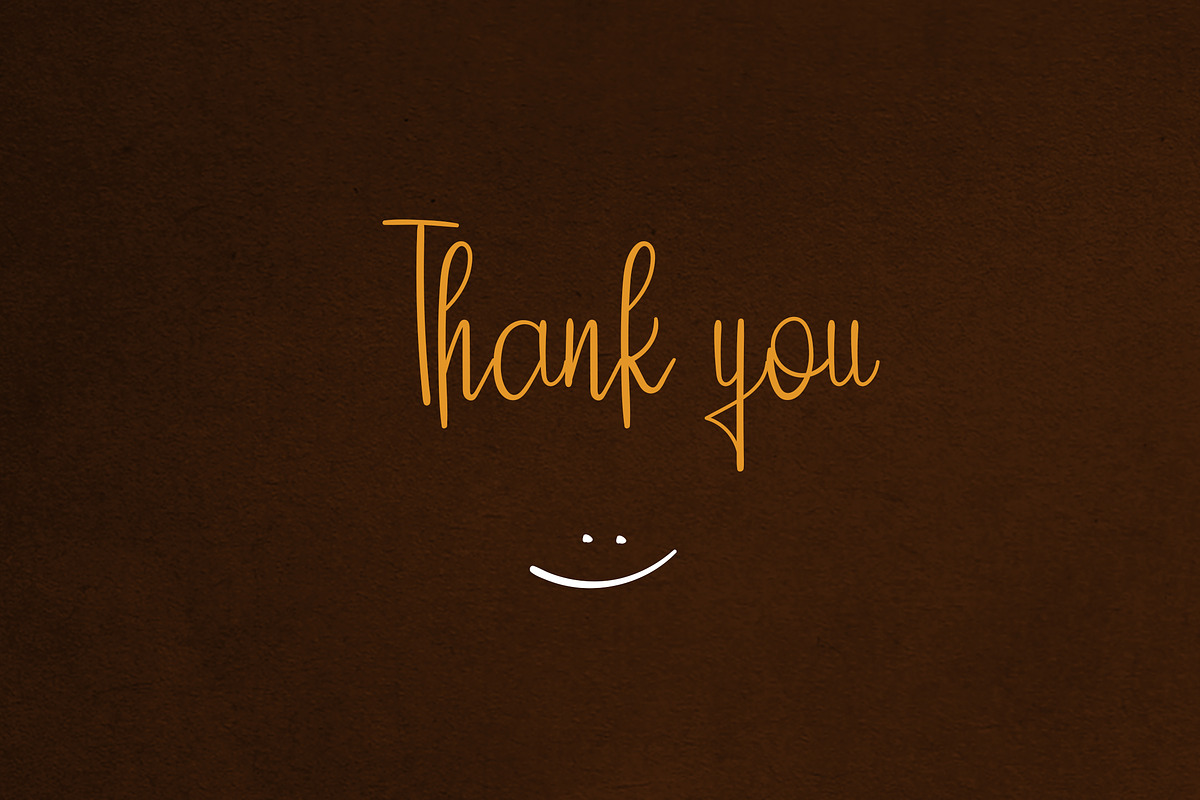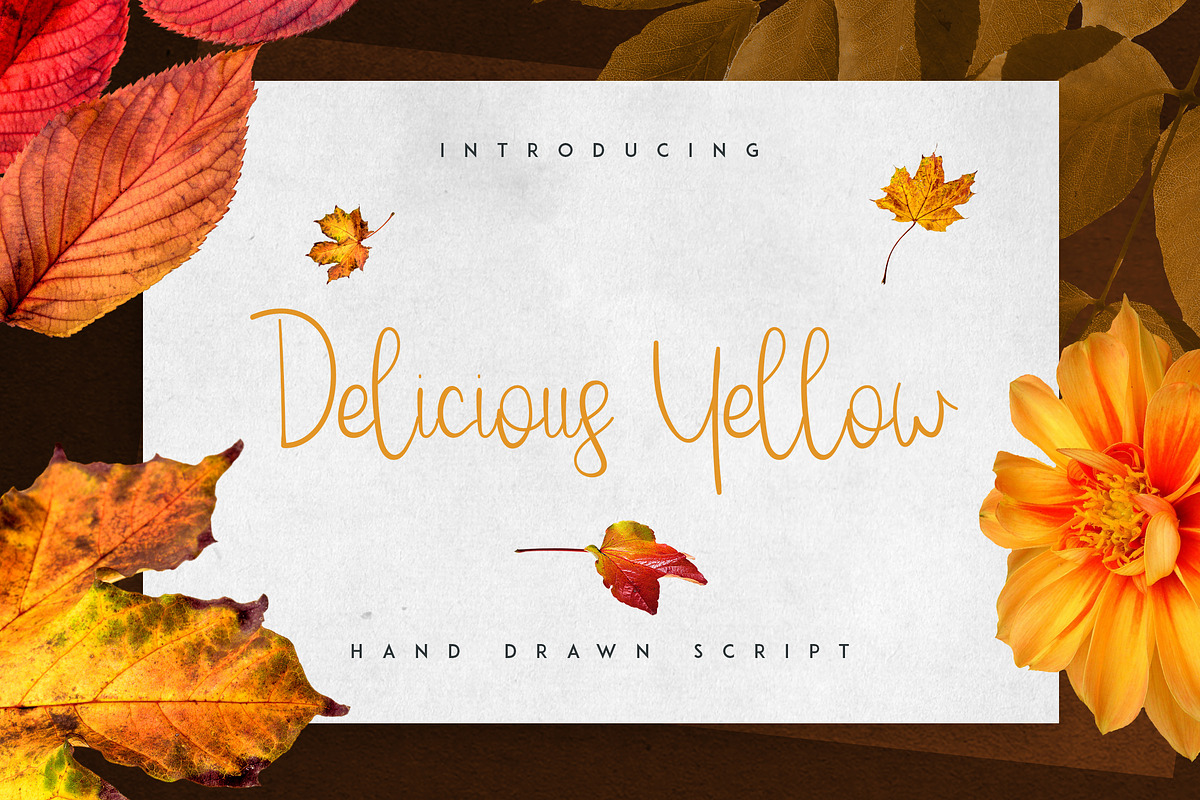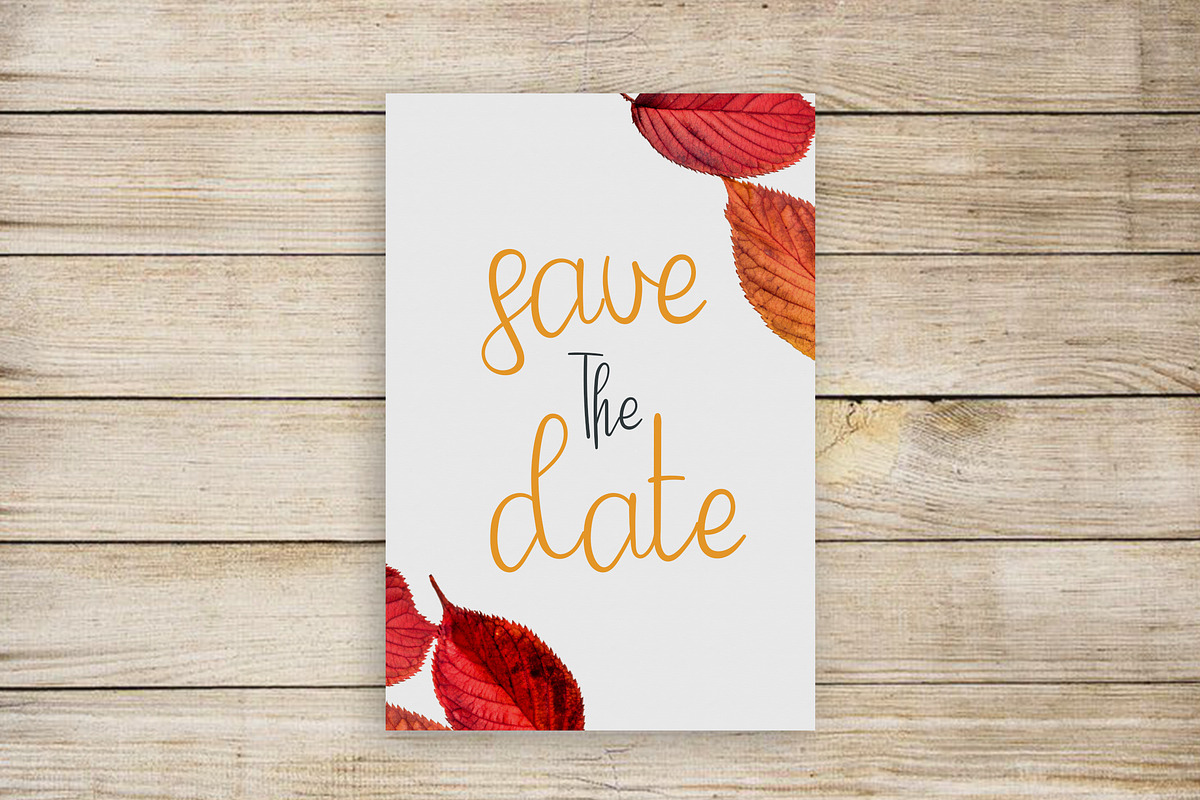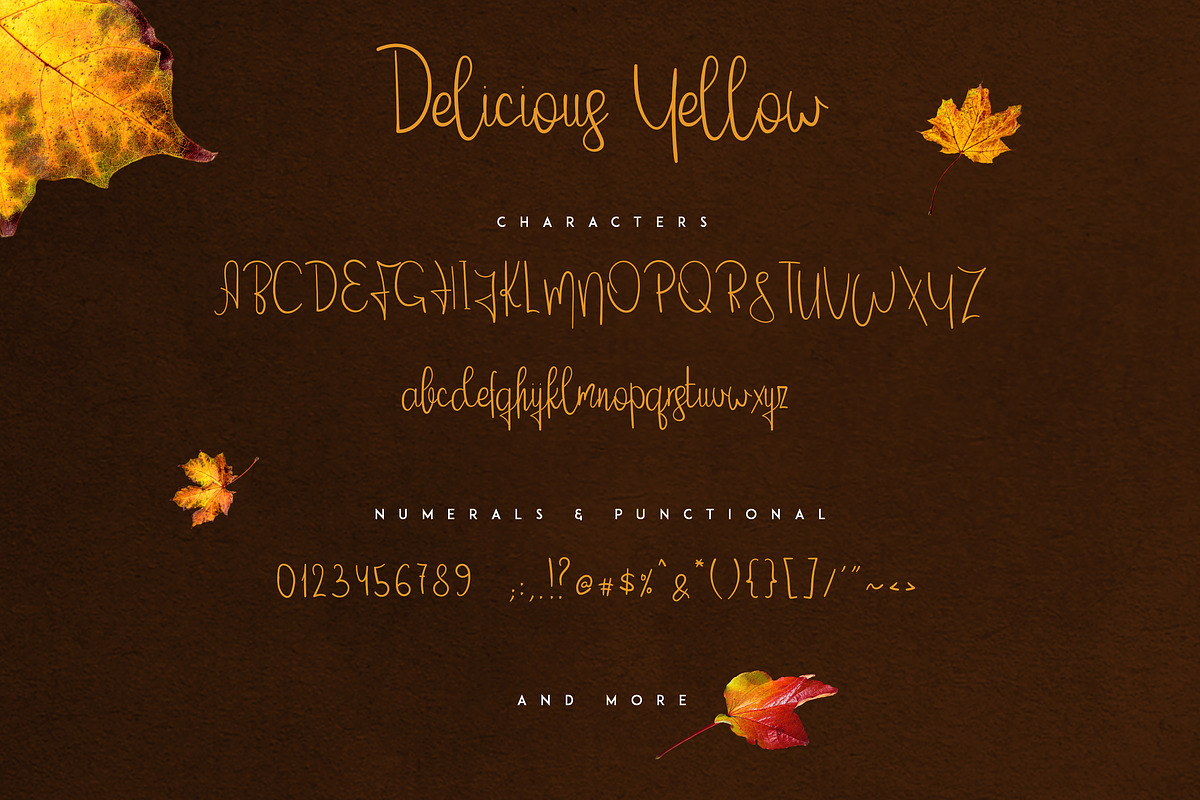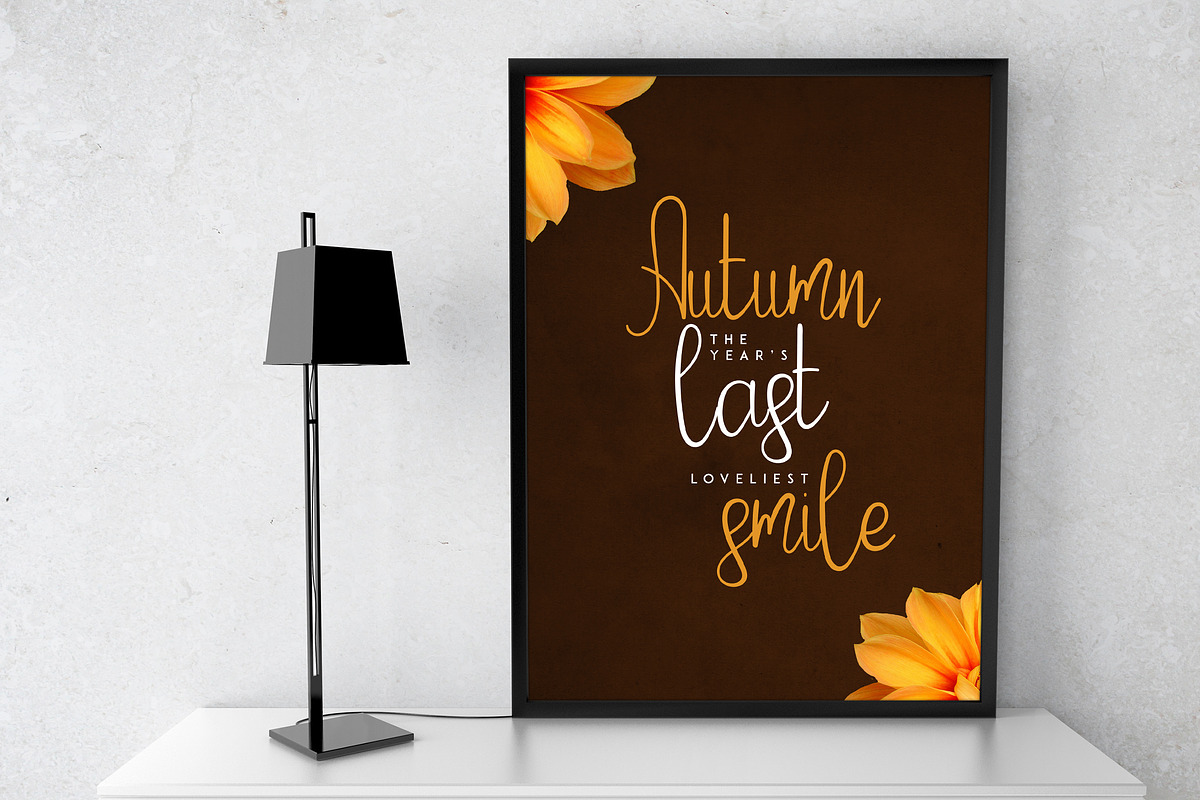
Delicious Yellow Script
Introducing: Delicious Yellow Script ! A handwritten font with a personal charm. With dry clean lines, Delicious Yellow is perfect for branding projects, home-ware designs, product packaging - or simply as a stylish text overlay to any background image.
Why Delicious Yellow Script is worth a look
Delicious Yellow Script by VP Fonts fits naturally into Branding, posters, packaging, typography.